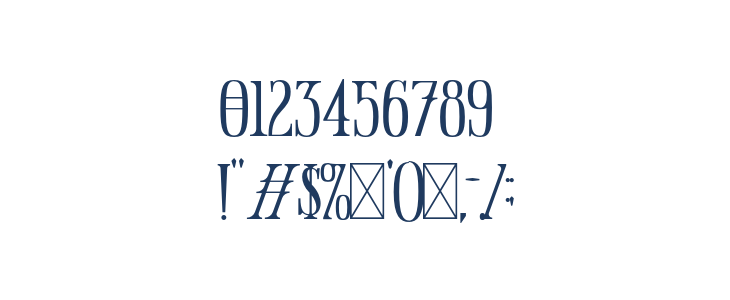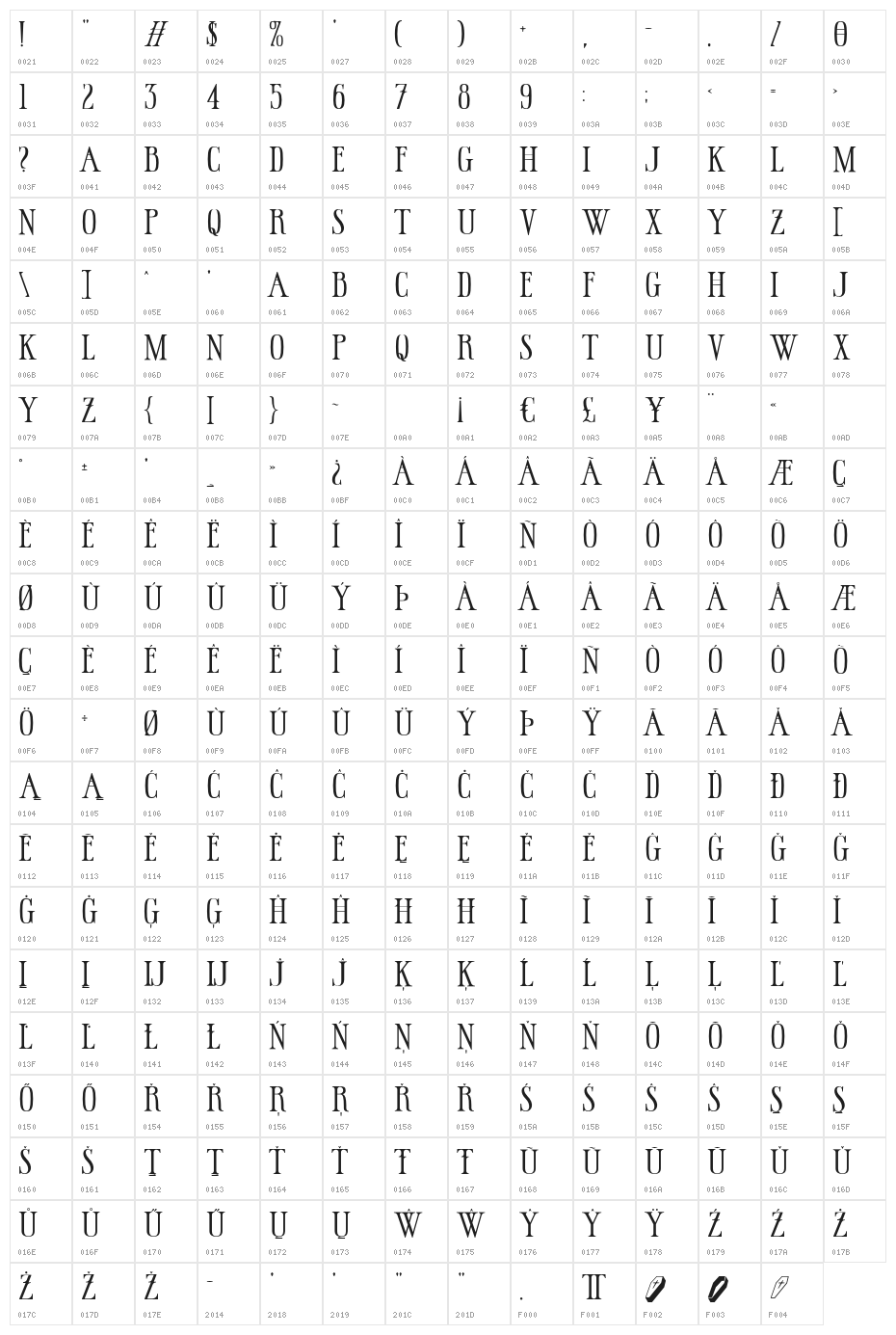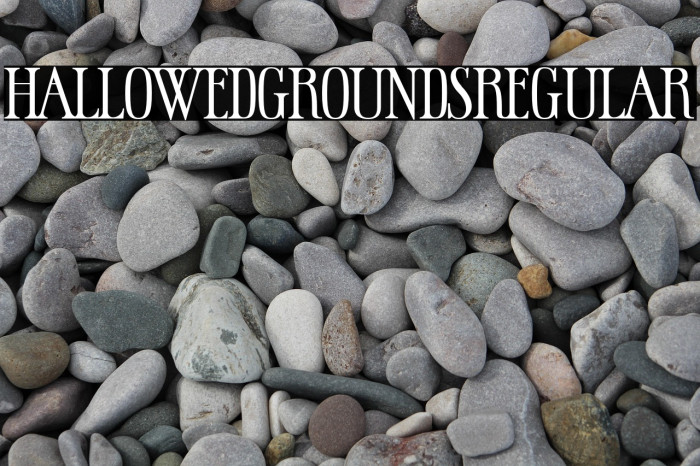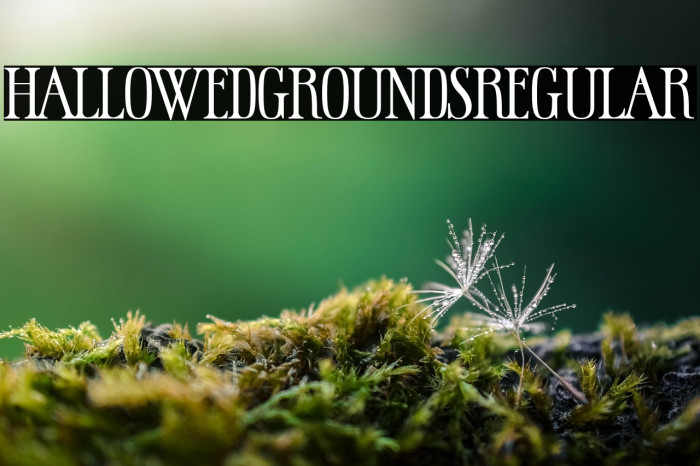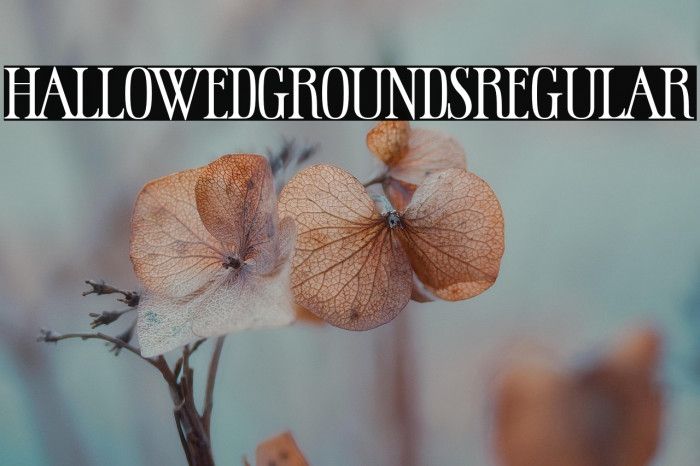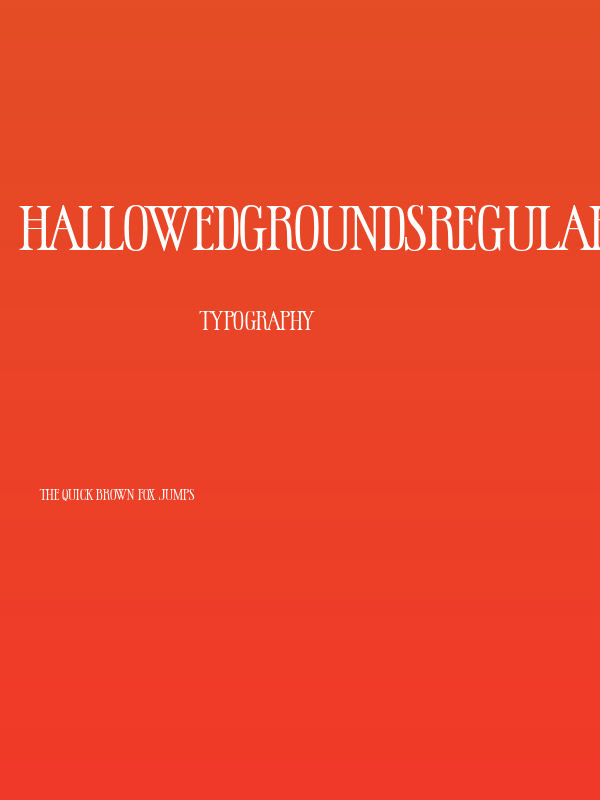
HallowedGroundsRegular Font
HallowedGroundsRegular Description
This font features a distinctive and elegant serif style, characterized by its tall, narrow letterforms and high contrast between thick and thin strokes. The serifs are sharp and pronounced, adding a touch of sophistication and formality. The uppercase letters are particularly elongated, giving the font a stately appearance. The numerals are consistent with the overall design, maintaining the same high contrast and narrow proportions. Special characters are designed with the same attention to detail, ensuring a cohesive look across all glyphs. This font is well-suited for projects that require a classic and refined aesthetic.